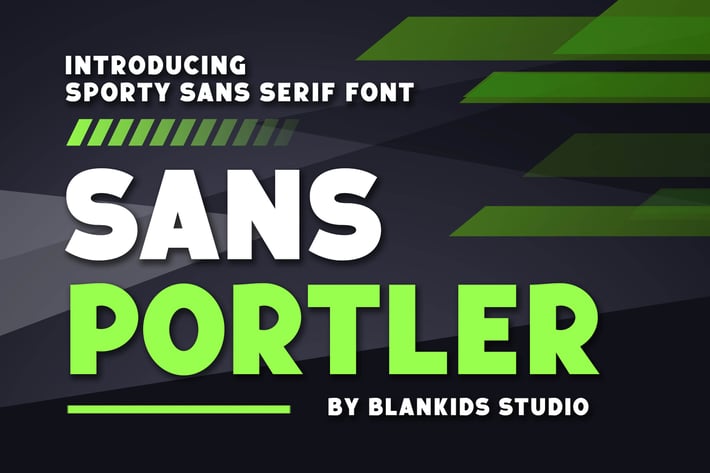
Sans Portler a Sporty Sans Serif Font
Are you looking for a vintage playful font? Do you want of creating Something that stand out and inspire creativity, imagination, and endless fun? Wait no more, we will give you the best choice.
Sans Portler Sporty Sans Serif
Sans Portler Sporty Sans Serif, Inspiring from sporty style typography. This font is perfect for a design that makes it more attractive and playful. made with a very good level of aesthetics making this font suitable for book cover, poster, packging, merchandise, logotype and much more.